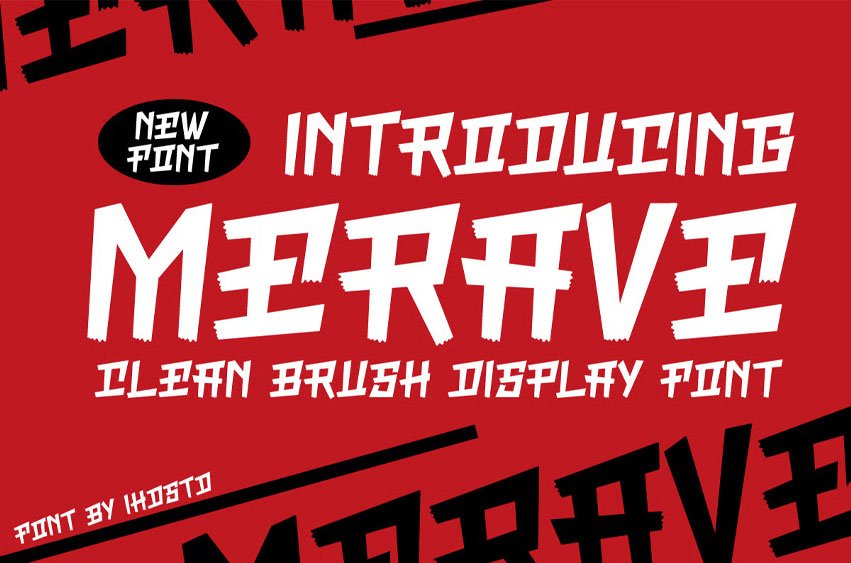
Merave Font Lean Brush Display Font is a clean, brush, and stylish font inspired by vintage aesthetics. Its unique crown-like details and retro vibes make it perfect for logos, posters, headlines, and any design that seeks a classic yet striking look.